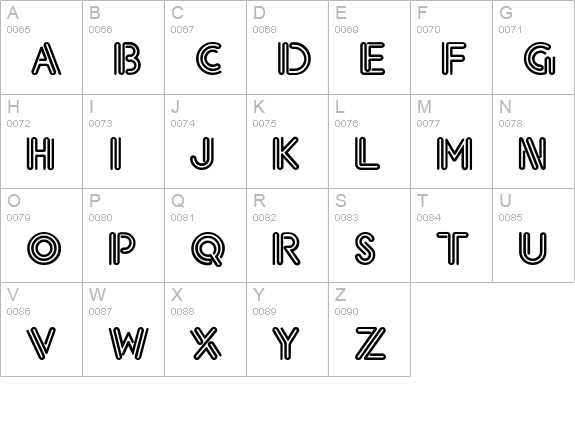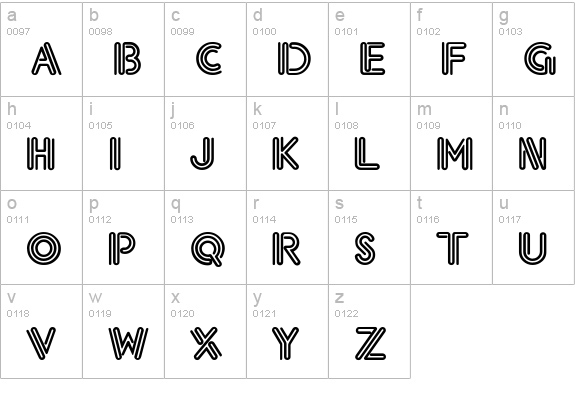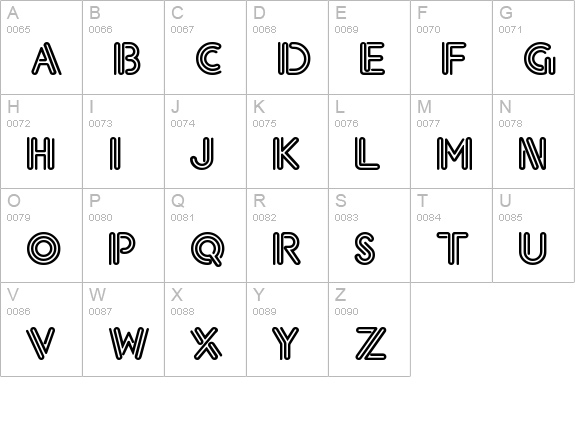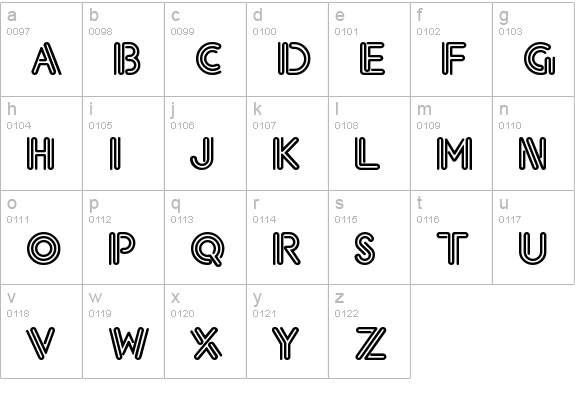
Eklektic-Normal-Light is the standard, neutral variant in the Eklektic typeface family \xE2\x80\x94 well suited to general body text, paragraphs, and standard typographic work.
Eklektic-Normal-Light is a versatile and elegant font that exudes sophistication and modernity. With its clean lines and balanced proportions, this font is perfect for a wide range of design projects, from branding to editorial design. The light weight of the font adds a touch of delicacy and refinement to any text. And the best part? Eklektic-Normal-Light is available for free download at FontsMarket.com. So go ahead and add this beautiful font to your collection today, and elevate your design projects with its timeless appeal.